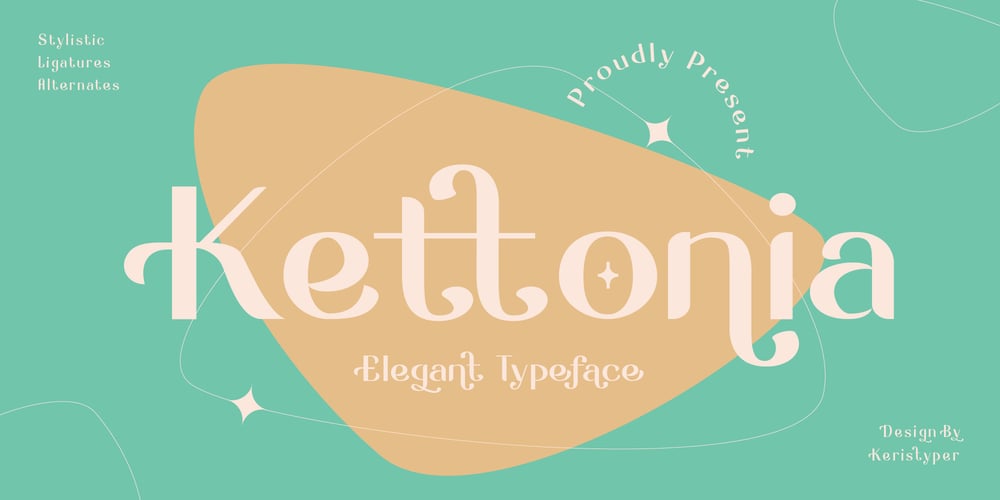
Kettonia Font Family was designed by Tezar Tantular and published by Keristyper Studio. Kettonia contains 1 styles and family package options. Kettonia is a modern aesthetic serif font that is both memorable and stylish. This font is good for logo design, Social media, Movie Titles, Books Titles, short text even long text letters, and good for your secondary text font with sans or serif.**Featured:*** Standard Uppercase & Lowercase* Numeral & Punctuation* Multilingual : ä ö ü Ä Ö Ü ß ¿ ¡* Alternate & Ligature* PUA encodedWe recommend programs that support the OpenType feature and the Glyphs panel such as Adobe applications or Corel Draw. so you can use all the variations of the glyphs.Hope you enjoy our fonts!